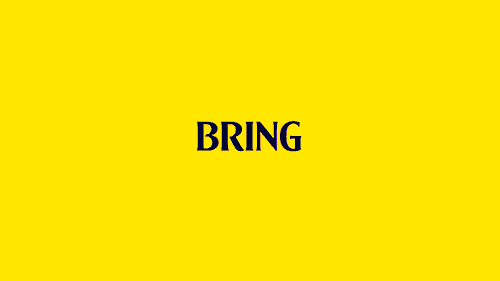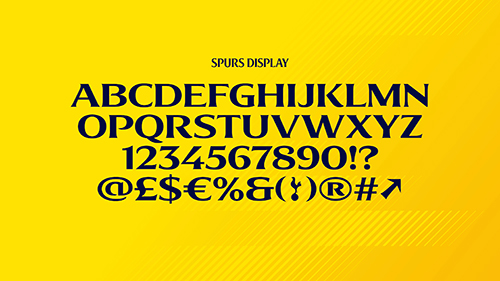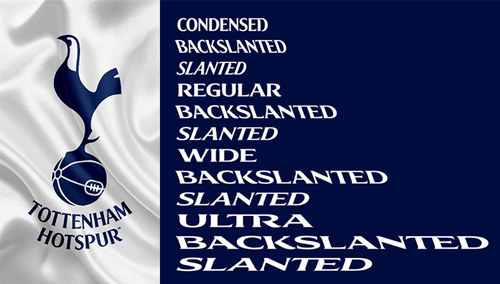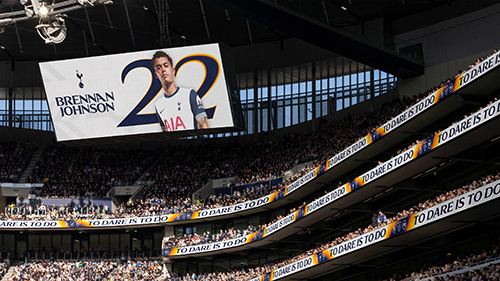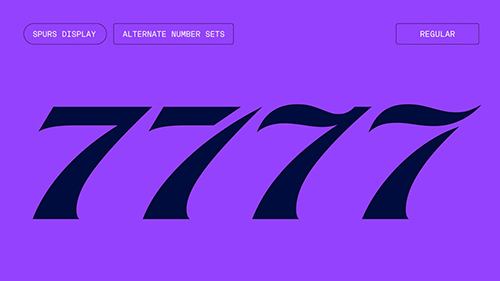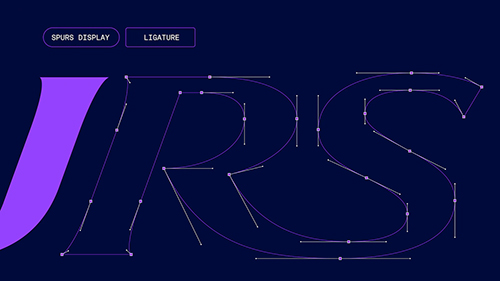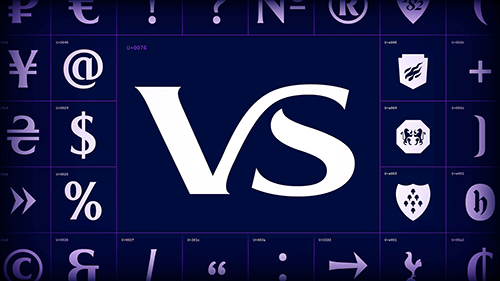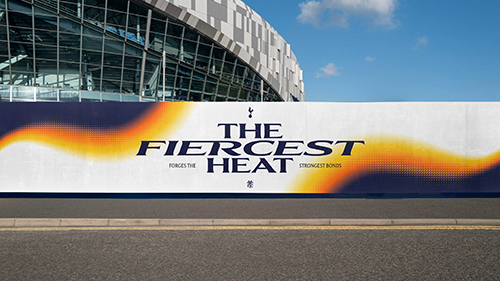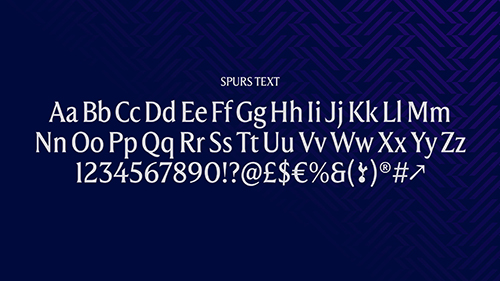
• f37foundry: "The North London football club needed a new typeface as exciting, electrifying and distinctive as their unique brand of football. We were asked to turn the temperature up on a new high-energy typographic approach." Tottenham Hotspur founded in 1882, Spurs live by their famous motto “To Dare Is To Do” – a promise to pursue their own path, and win with flair and style. They built a futuristic new stadium in 2019. It’s the third largest in the UK, featuring the world's first dividing, retractable football pitch, that transforms the Stadium into a multi-purpose venue for NFL games, F1 go-karting, concerts and more. Though much-loved, their brand typography felt out of step with the new, modern Spurs, so it was time for a revamp.
• "We worked with type foundry specialists F37® to evolve our typeface into something which retained the iconic features of TH caps but also create something which is adaptable, dynamic and had the flexibility to work across all areas of the business. New design features have been inspired by our famous cockerel together with special characters, ligatures, a completely new lowercase set and over 12 different weights and styles." Kieran Murphy – Tottenham Hotspur, Head of Creative & Brand
The brief
• We were briefed by London branding studio Nomad to create a new, flexible, exciting family of typefaces that retained the spirit of the club’s existing 20-year-old font, TH Caps. There were two parts to the task: first, a set of all-caps display fonts; second, a workhorse upper- and lower-case full Latin text font with italics. Importantly, these needed to be designed as different styles of the same typeface.
Delivery
• Our starting point was to use Nomad’s unifying club philosophy, along with shapes from the club cockerel, to give us direction.
• This inspired us to introduce interesting new design details to the modified display face, making it sharper in places to mimic the point of the beak and spur, as well as the curve of the tail where appropriate.
• We removed some flicks and rounded corners, sharpened various joins, added serifs, and redrew parts we felt weren’t working.
• As part of the process, we created many new widths and slants — both forwards and backwards. We also developed several options for each glyph, with some becoming the standard and others forming alternate sets within the font. Additionally, we created a series of ligatures, which were included in the package.
• And we developed a wide range of ligatures that bring new craft and dynamism to the typeface, adding interest and individuality to the compelling new visual aesthetic.
• Overall, the new display font looks more modern, edgy, and streamlined. It feels like a sharp, fitted suit rather than a slightly baggy tracksuit.
• The custom text style takes many typographic cues from the new display design, but it is more restrained and pared back. Legibility and versatility were key, though the original character still shines through. In essence, it’s a slightly condensed, old-style flared serif with an upright posture, sharp flicks, and soft connections.
• Both sides of the family fully express the Spurs philosophy. We were dared to come up with an electrifying typeface, and we did.
"We wanted to bring an edge and a modernity to the Spurs typography, and had the idea of turning an 18-year old display font into a super family of variable fonts that would sit at the heart of the new identity. There was only one partner to work with on this and that was F37®. The team were a joy to work with – respectful, challenging, and totally dedicated to delivering something exceptional, full of craft and precision, that sets the Club up for many years to come." Terry Stephens – Founder, Nomad